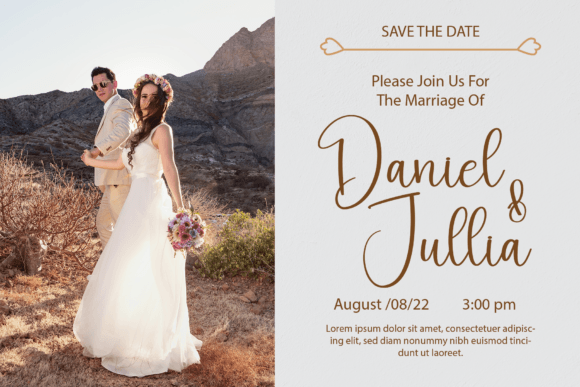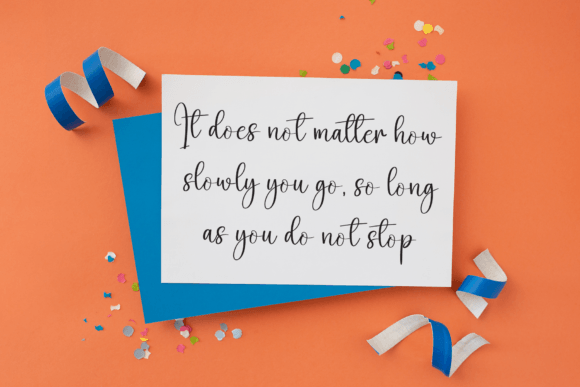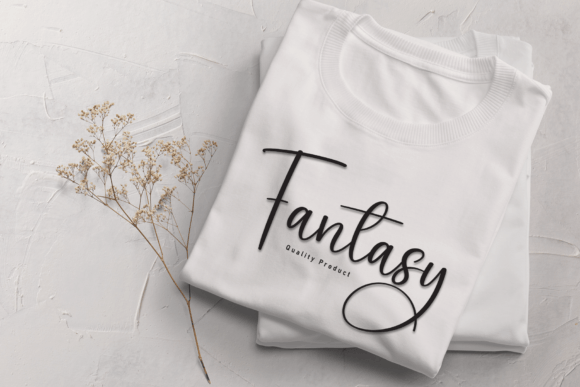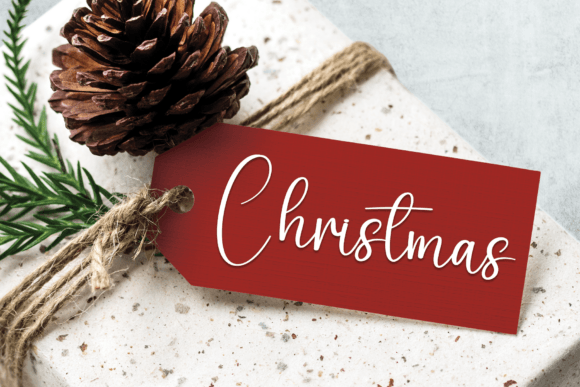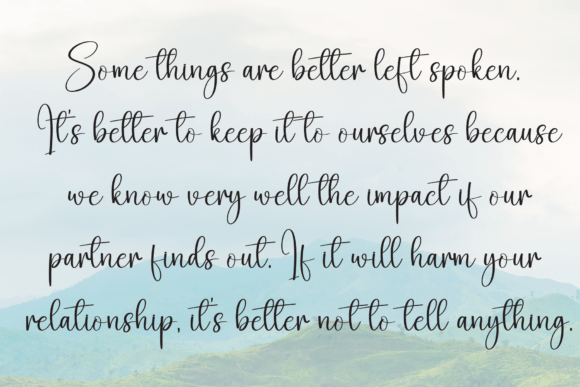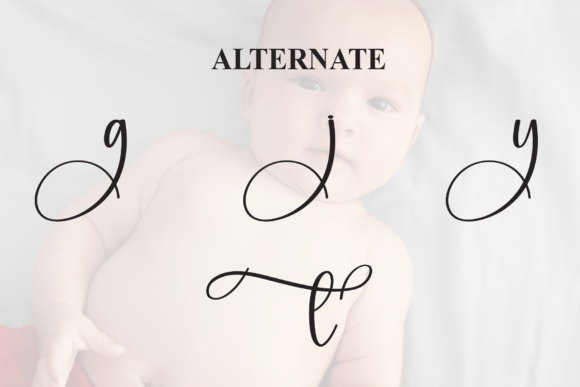
Babyfat Font: The Timeless Handwritten Font for Stunning Designs
In the world of typography, fonts play a crucial role in making or breaking a design. A perfect font can elevate your design, making it more engaging, readable, and visually appealing. If you’re a designer or crafter looking for a font that can add a touch of elegance and sophistication to your work, look no further than the Babyfat Font. In this article, we’ll explore the features and benefits of this lovely and timeless handwritten font.
What is Babyfat Font?
Babyfat Font is a beautiful, handwritten font that exudes a sense of warmth and personality. It’s a carefully crafted font that features unique and beautiful touches in every letter, making it perfect for creating eye-catching logos, branding, and quotes. The font’s distinctive style is sure to make your design stand out from the crowd and leave a lasting impression on your audience.
Features of Babyfat Font
So, what makes Babyfat Font so special? Here are some of its key features:
- Unique and Beautiful Touch: Every letter in the Babyfat Font has a unique and beautiful touch, which gives it a distinctive and personalized feel.
- Handwritten Style: The font’s handwritten style adds a touch of warmth and personality to your design, making it more relatable and engaging.
- Timeless Appeal: Unlike trendy fonts that quickly go out of style, Babyfat Font has a timeless appeal that ensures your design will remain stylish and relevant for years to come.
- Elegant and Sophisticated: The font’s elegant and sophisticated style makes it perfect for creating high-end designs, such as luxury branding and premium products.
Benefits of Using Babyfat Font
Now that we’ve explored the features of Babyfat Font, let’s discuss its benefits. Here are some reasons why you should consider using this font in your designs:
- Enhance Your Brand Identity: Babyfat Font can help you create a unique and recognizable brand identity that sets you apart from your competitors.
- Elevate Your Designs: The font’s elegant and sophisticated style can elevate your designs, making them more visually appealing and engaging.
- Perfect for Quotes and Branding: Babyfat Font is ideal for creating stunning quotes and branding materials, such as logos, business cards, and brochures.
- Easy to Read and Understand: The font’s clear and readable style ensures that your message is communicated effectively, making it easy for your audience to understand and engage with your content.
How to Use Babyfat Font in Your Designs
Using Babyfat Font in your designs is easy. Here are some tips to get you started:
- Pair it with Other Fonts: Experiment with pairing Babyfat Font with other fonts to create a unique and visually appealing combination.
- Use it for Headings and Titles: The font’s elegant and sophisticated style makes it perfect for headings and titles, adding a touch of elegance to your design.
- Experiment with Colors and Textures: Try experimenting with different colors and textures to add depth and interest to your design.
In conclusion, Babyfat Font is a lovely and timeless handwritten font that’s perfect for designers and crafters looking to add a touch of elegance and sophistication to their work. With its unique and beautiful touches, elegant style, and timeless appeal, this font is sure to elevate your designs and make them more engaging and visually appealing. Whether you’re creating logos, branding materials, or quotes, Babyfat Font is an excellent choice that will help you achieve your design goals.